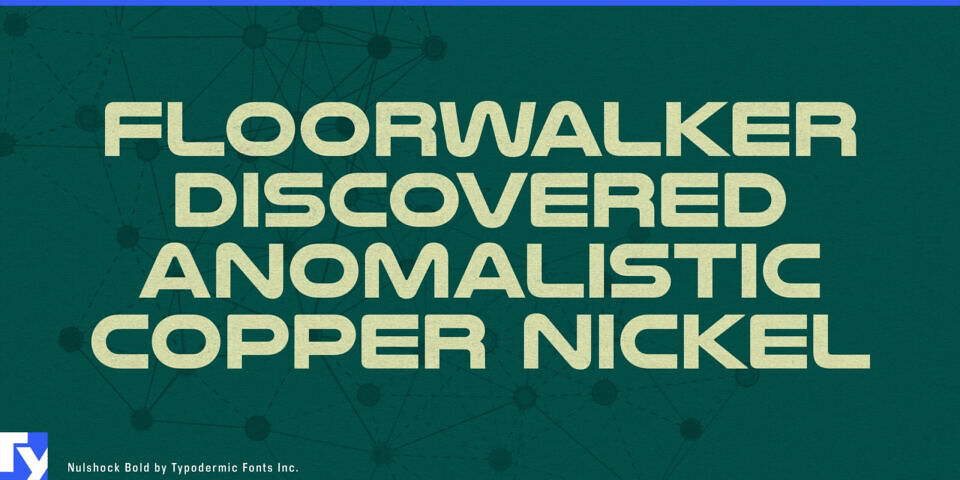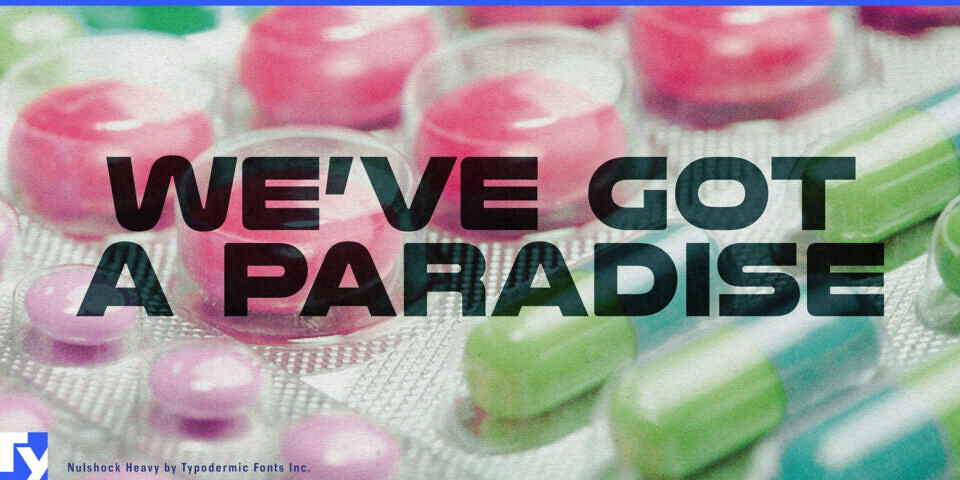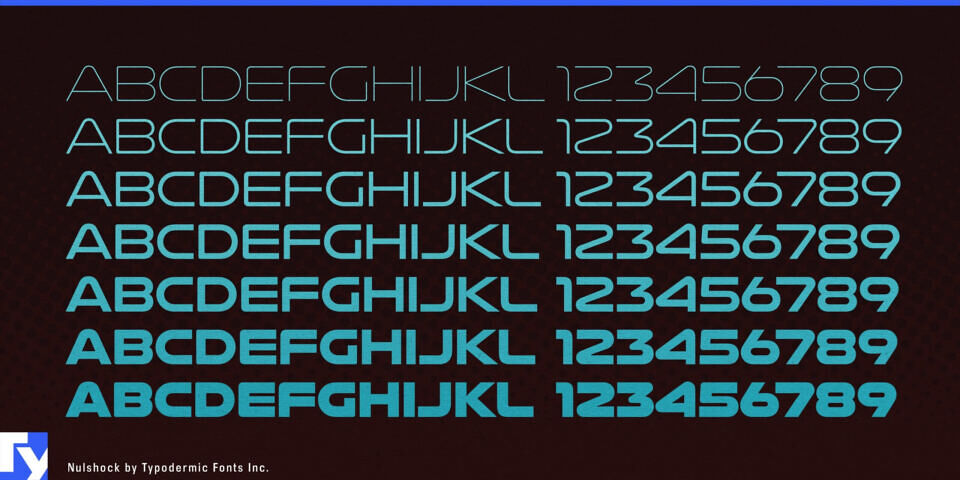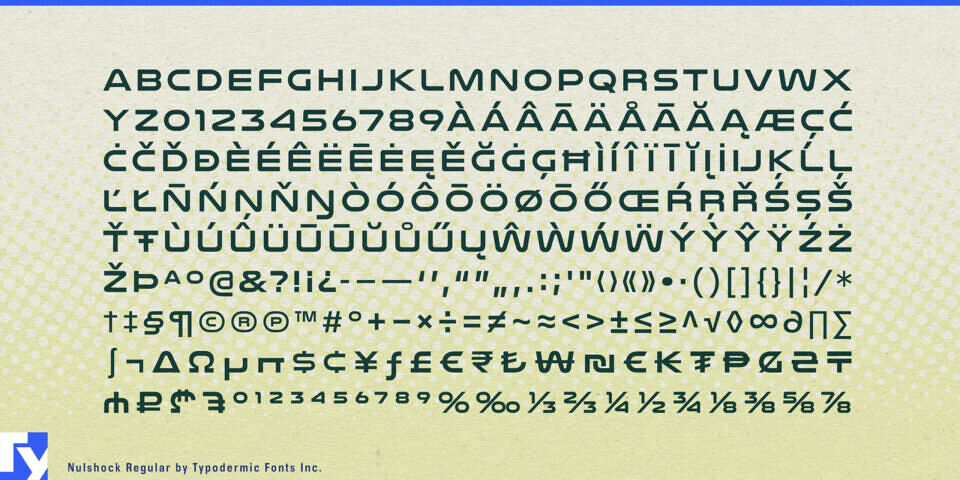
Nulshock Font
Nulshock combines industrial precision with aerodynamic form for a clean, high-tech aesthetic. Its wide stance and balanced geometry create strength and clarity across seven weights with italics, from light and agile to heavy and grounded. Designed for versatility, it works as confidently in branding and motion graphics as in technical layouts and interfaces. Complete with fractions, symbols, and broad Latin language support, Nulshock provides the tools for global, detail-oriented design.
Designed by: Typodermic Fonts